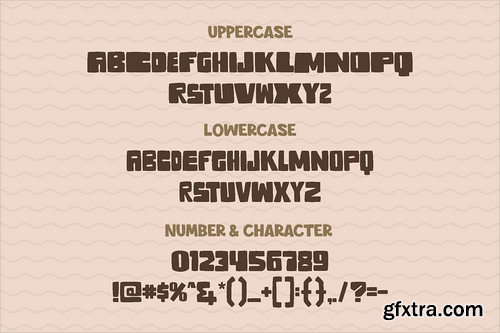
Wave sound, wind blows, the rise of the tide, and surfer slicing through the riff.. The energy of rebel and carefree feeling of them, brings The Tide as the main reason to be put on the poster.